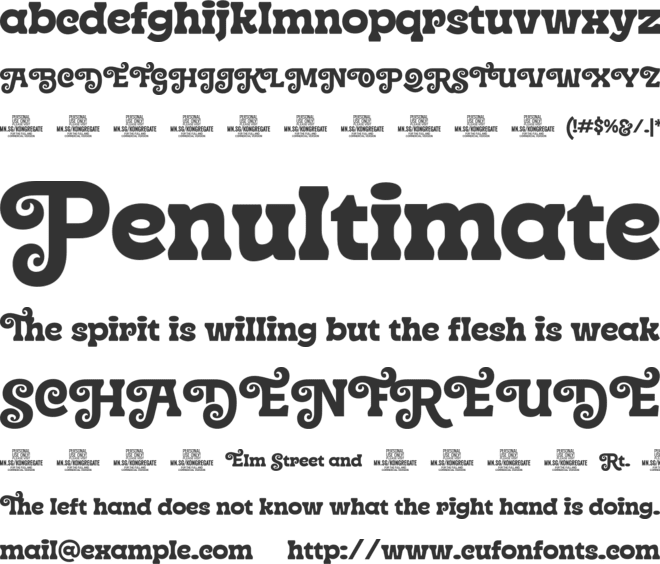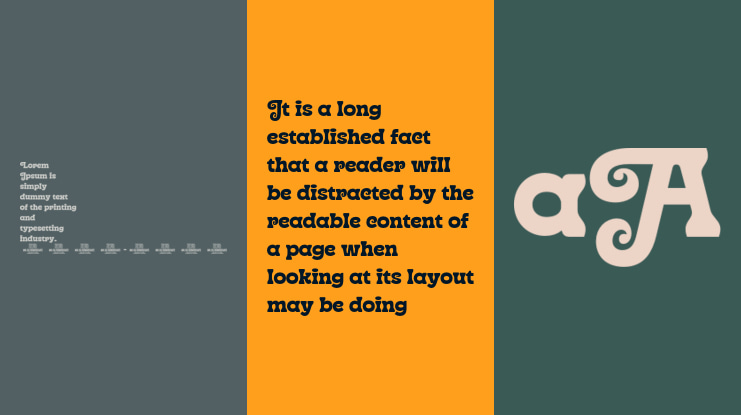
NOTE: This font is for PERSONAL USE ONLY!To purchase a commercial license, visit:https://www.mansgreback.com/product/kongregateKongregate is a bold display typeface with playful curls and a sturdy, rounded build. Its retro shapes feel cheerful and confident, with a musical rhythm that keeps letters lively without becoming chaotic.The appearance is heavy and compact, but softened by decorative terminals that add personality and warmth. For questions, please visit https://mansgreback.com/faq